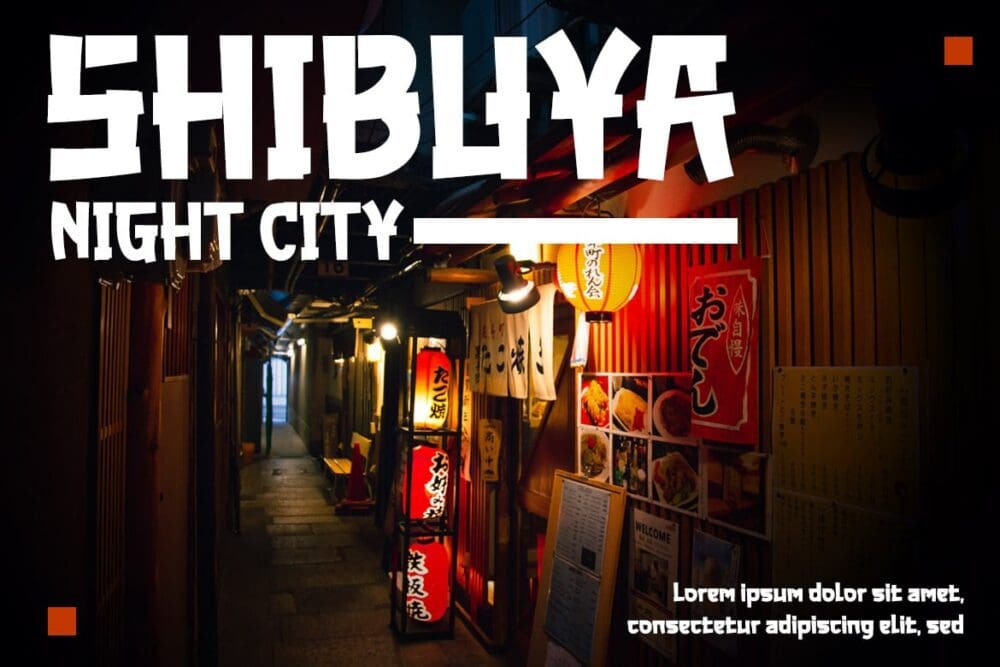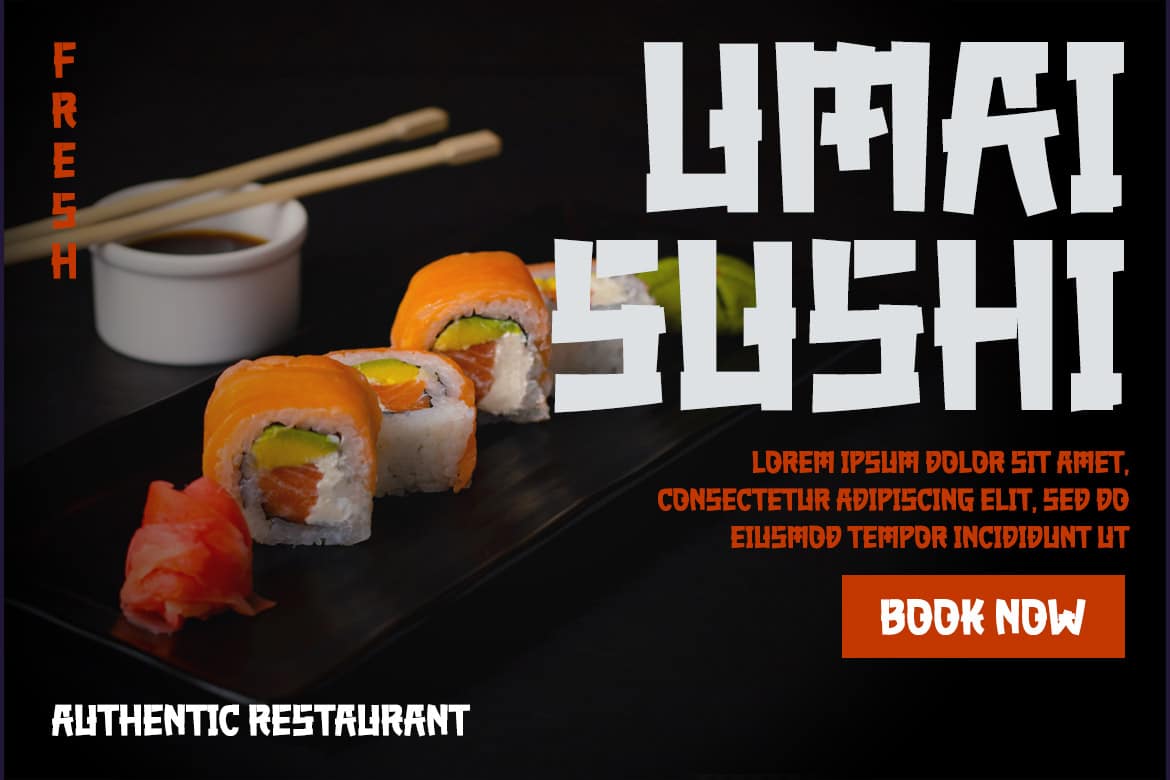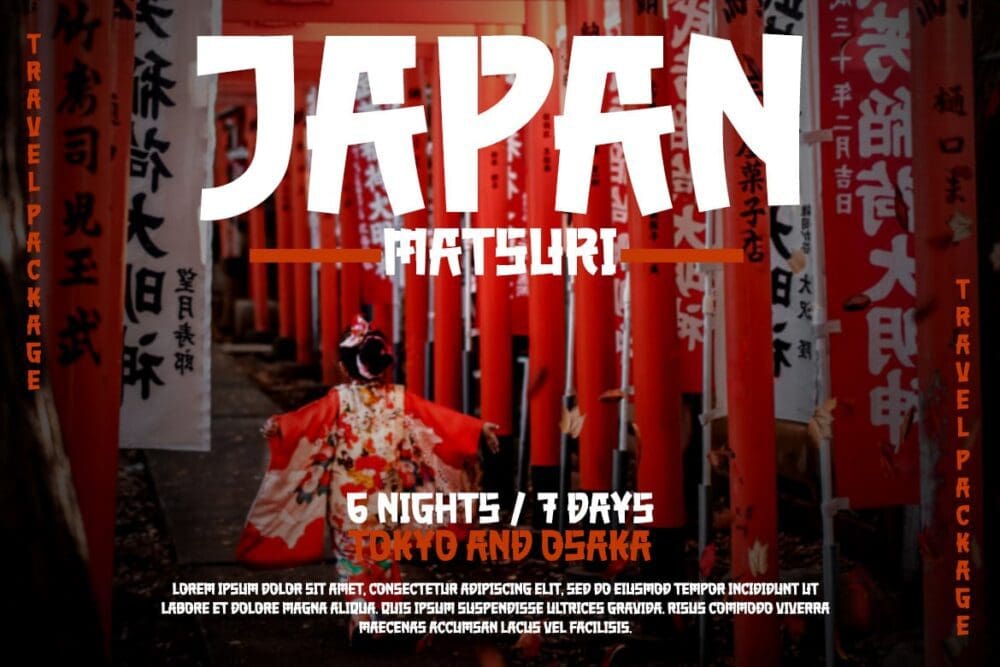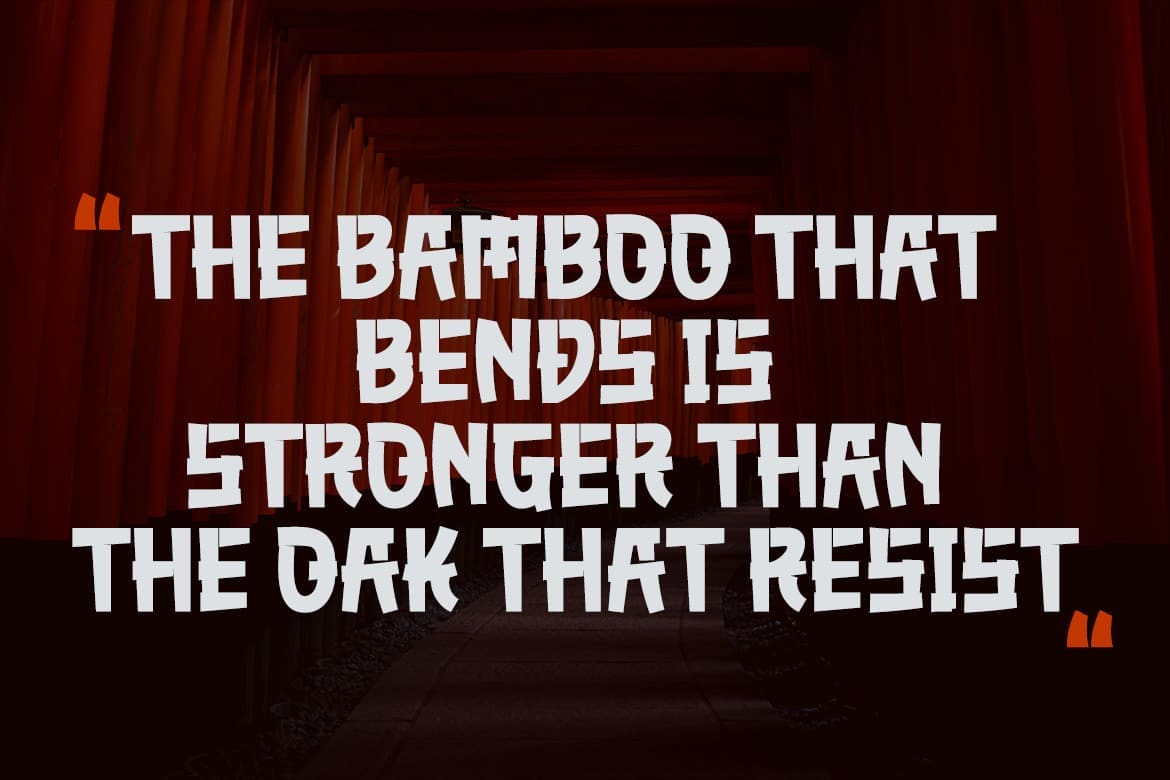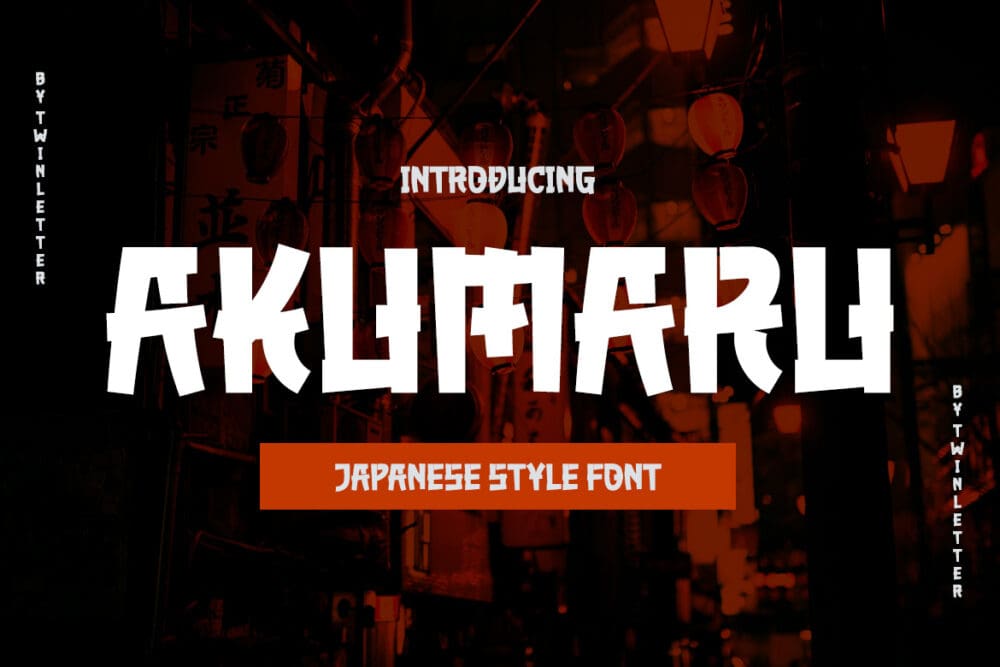
Akumaru Font
Akumaru Font. In every area of the eye, there are typefaces made with unique and appealing shapes. If you want your unique project to be charming, unique, gorgeous, and sophisticated enough to hypnotize the entire audience. Then this font should be used in your project. because the letters and words in this typeface have a gorgeous, elegant, and pleasant appearance.